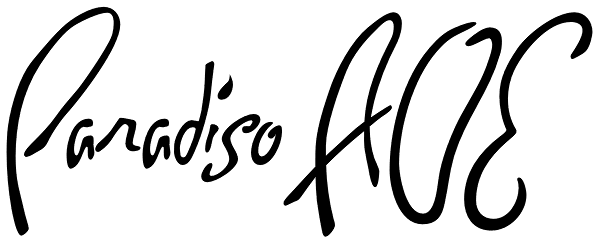
Paradiso AOE
Inspired by logotype of the Paris Resort and Casino in Las Vegas comes the Paradiso typeface, complete with an unusual array of leaning and unusually large capitals versus a petite lowercase that have a loosely drawn feel. Definitely a typeface with...